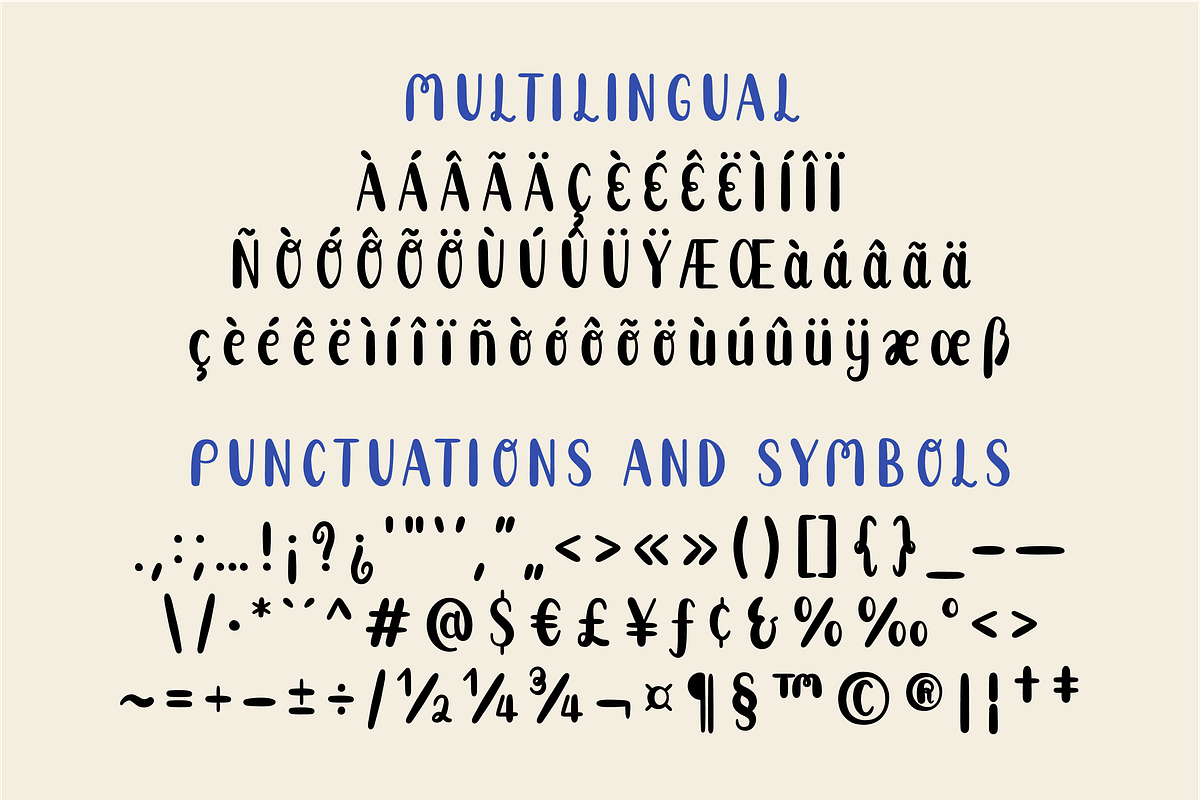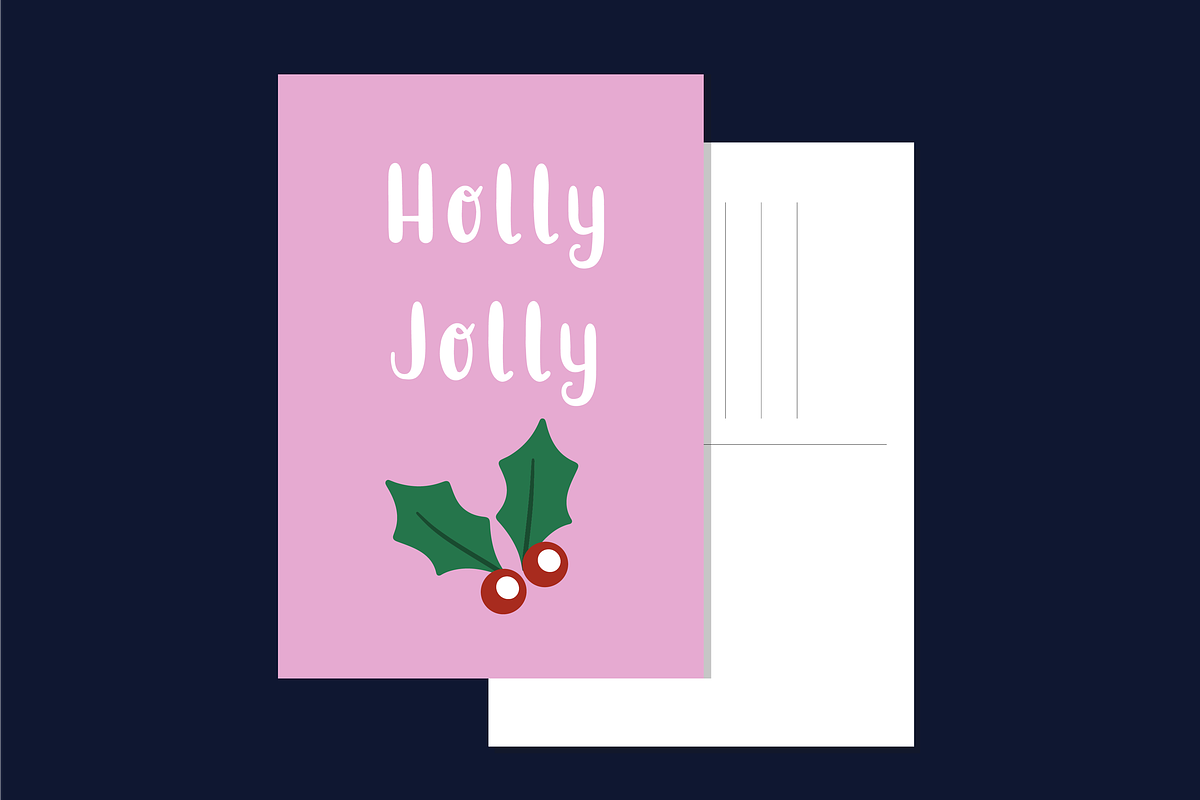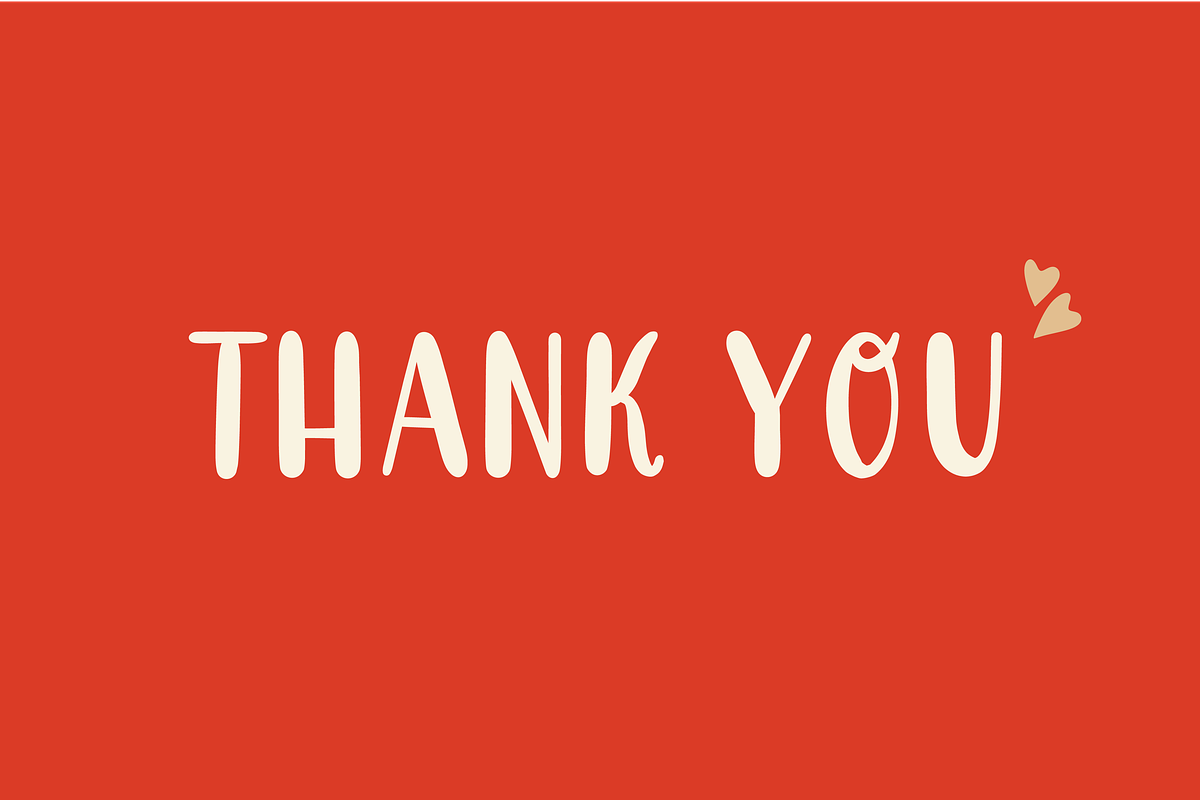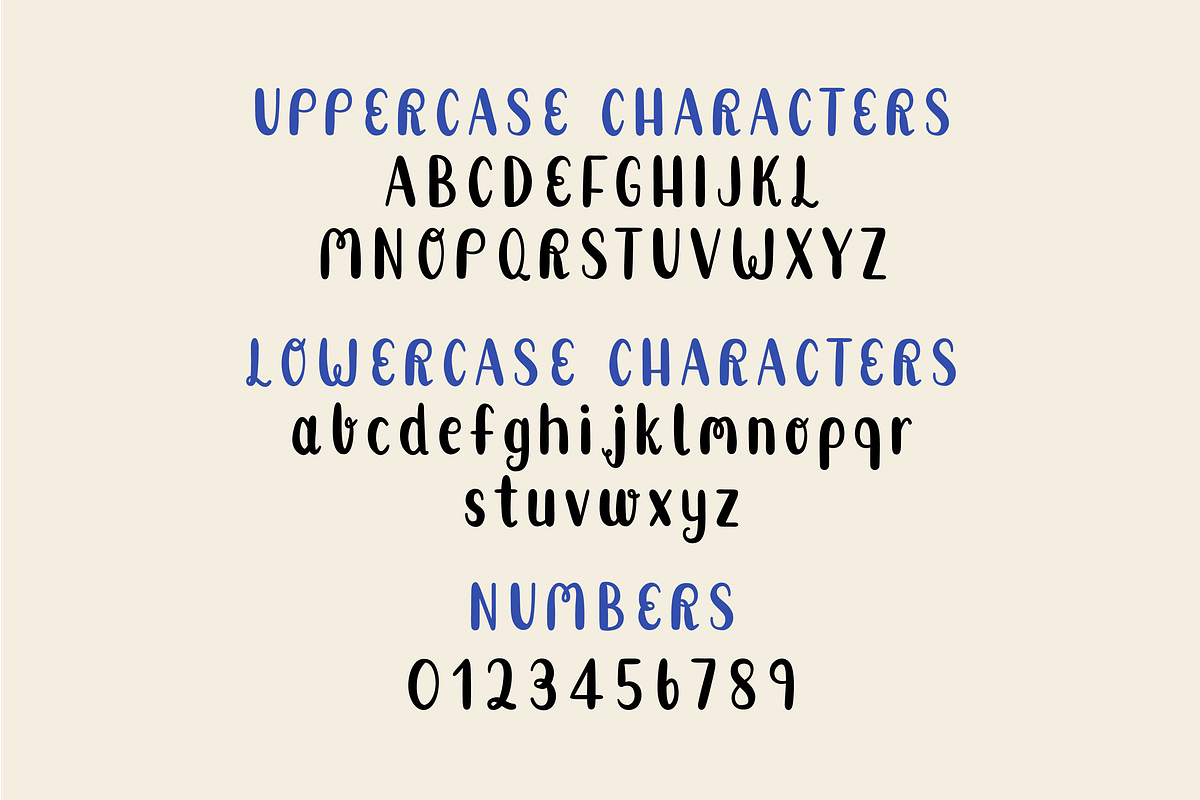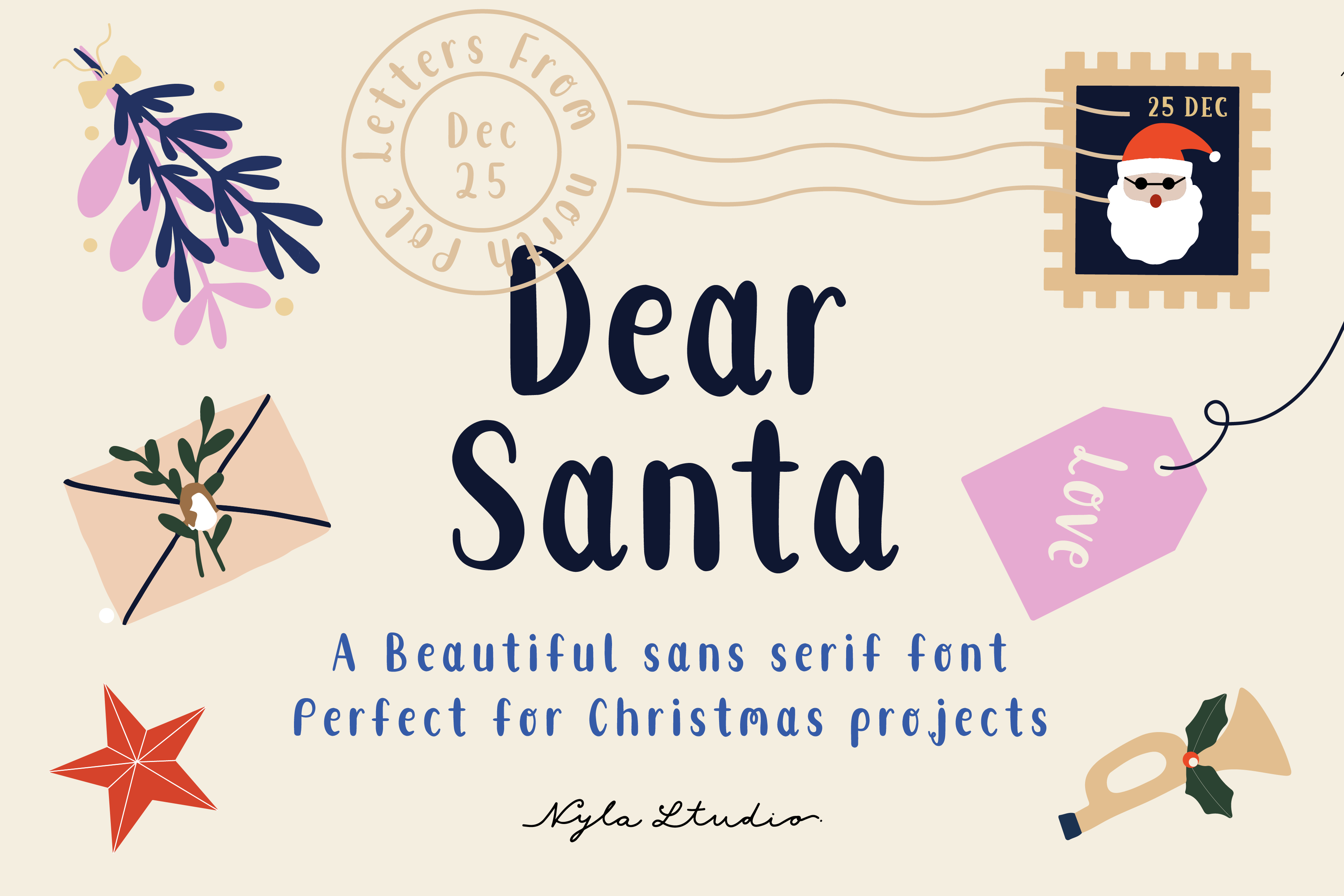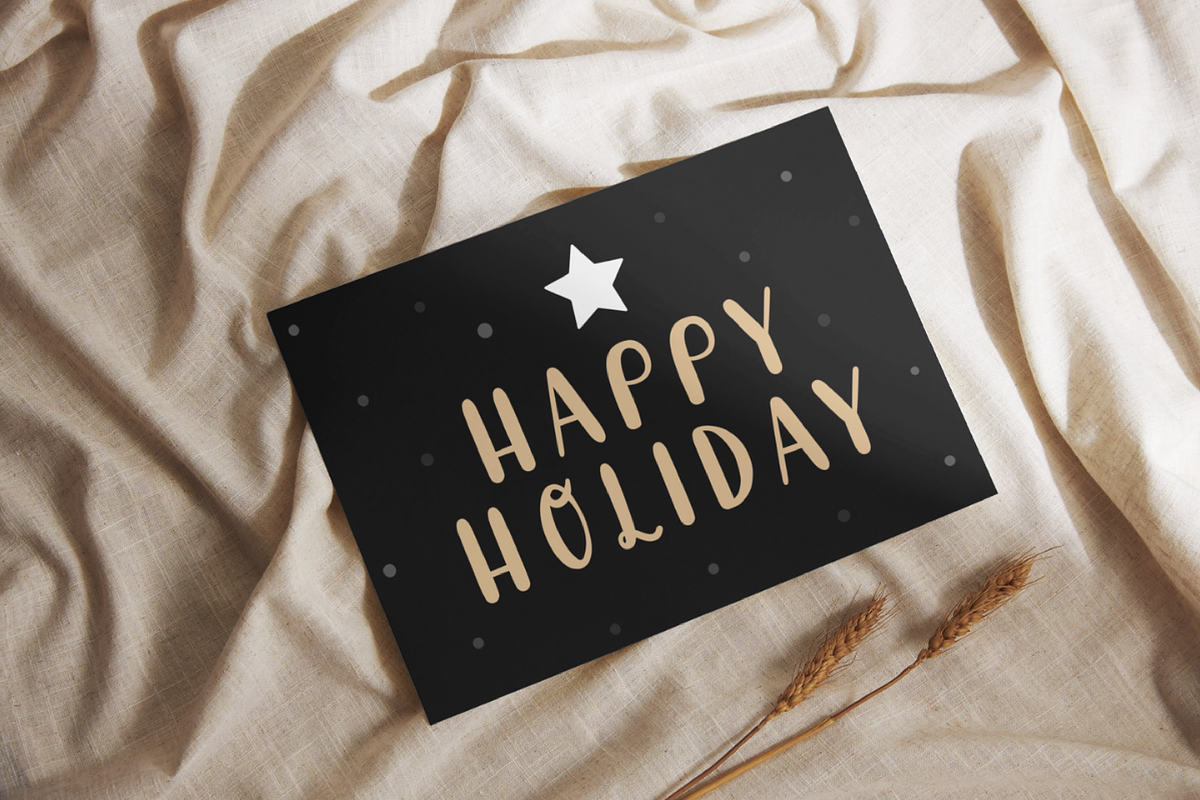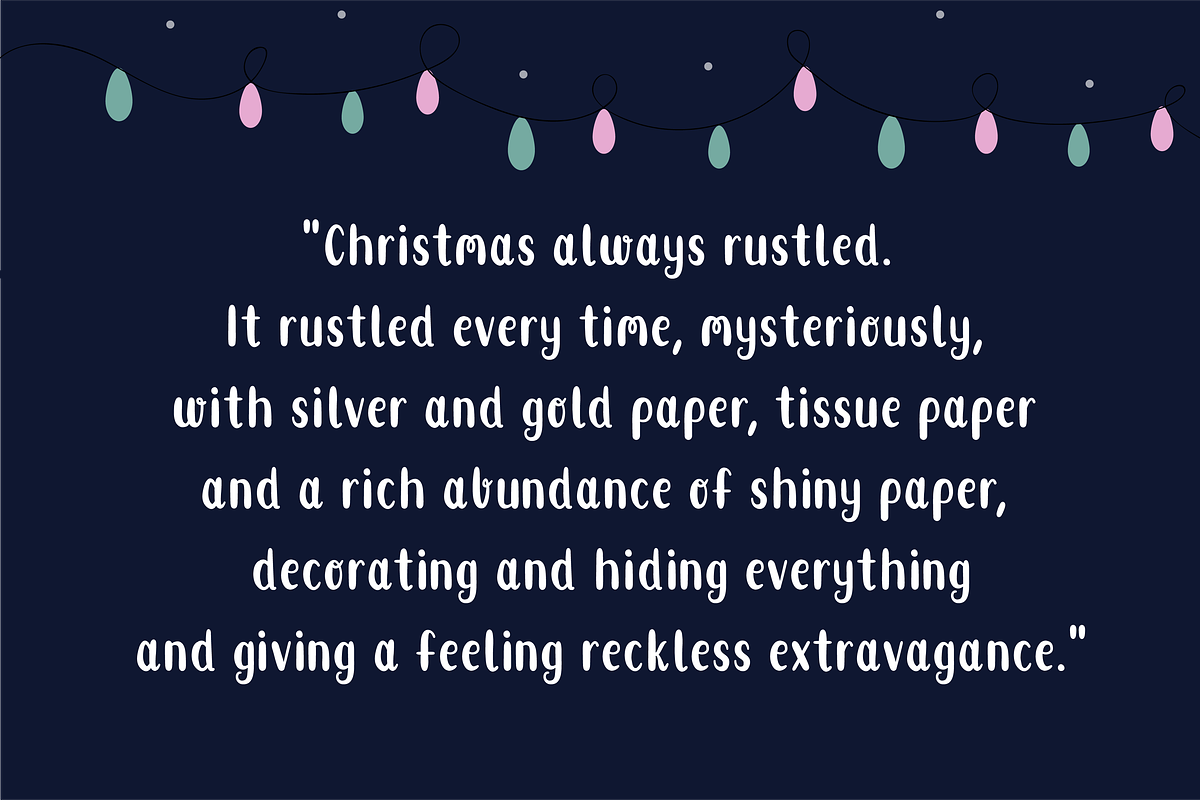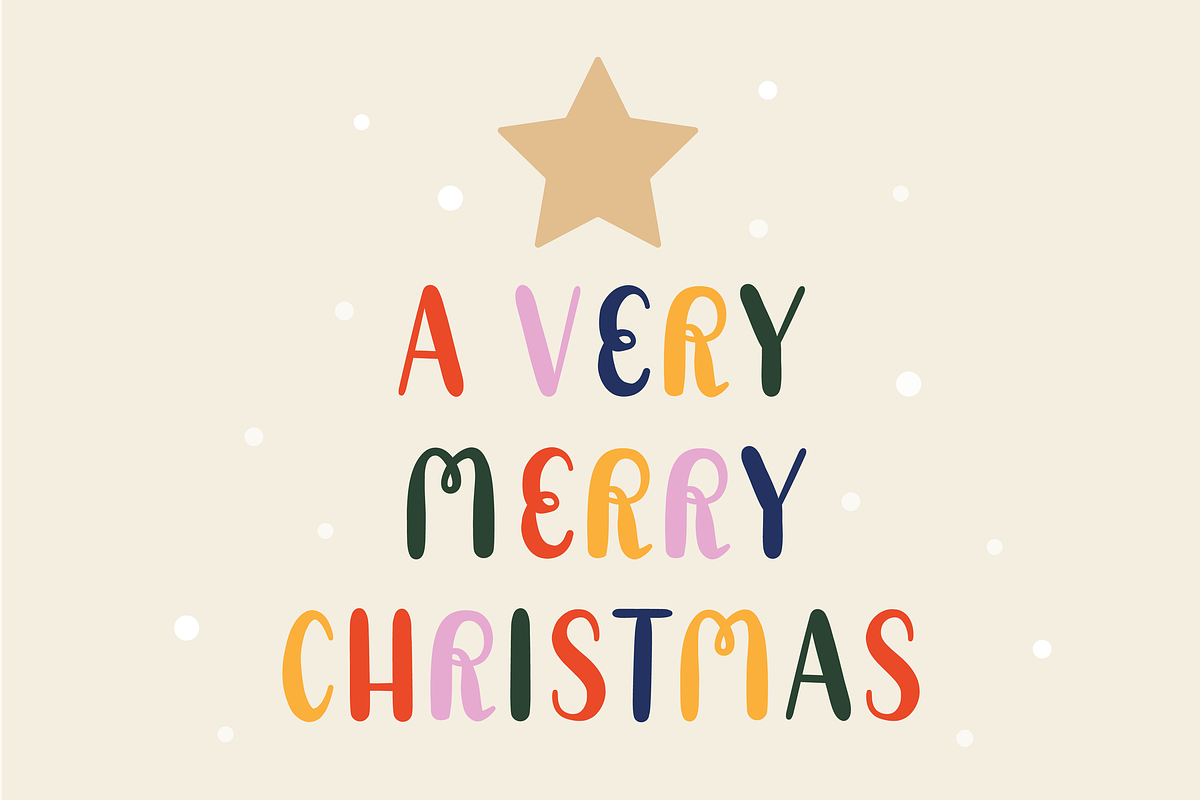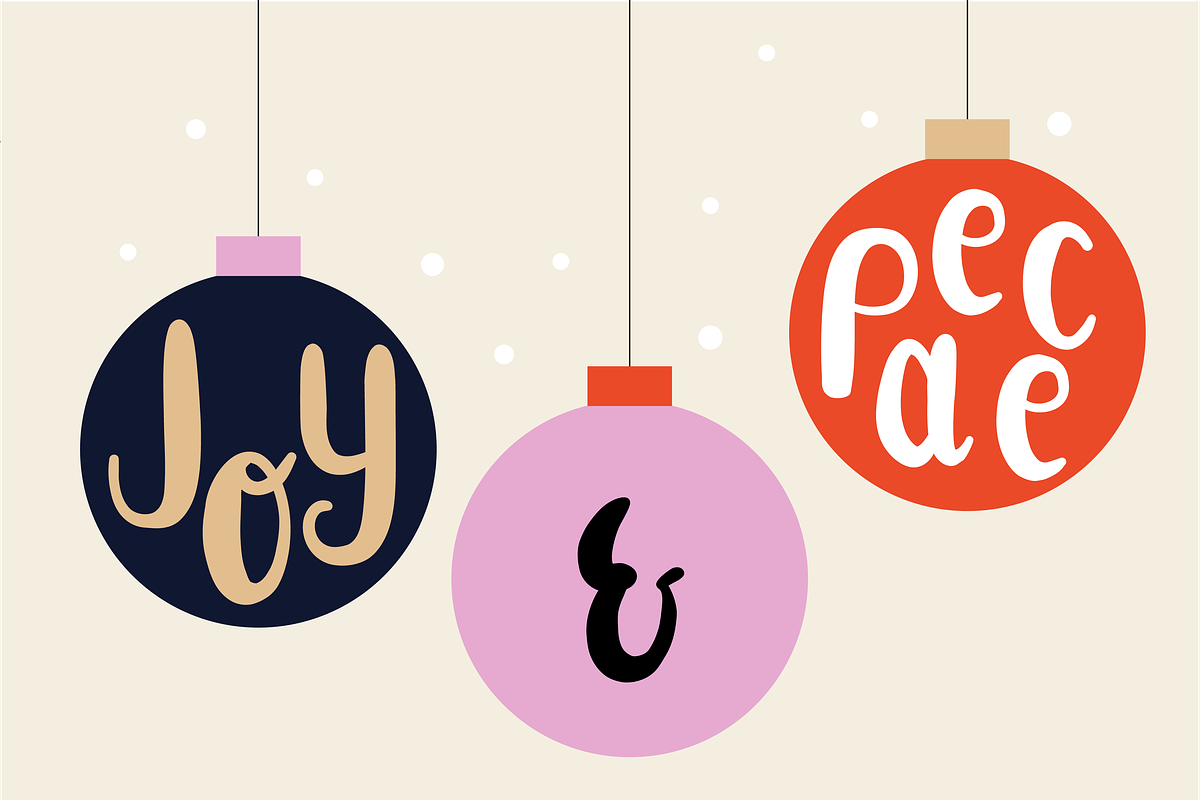
Dear Santa Font
DEAR SANTA is a beautiful and classy sans-serif font. Perfect for Christmas projects, shirts, retro designs, Christmas invitations, mugs, stickers, playful quotes, creating posters, logos, greeting cards, packaging, decorating the illustration and so much more!
Dear Santa Features:
- Full set of alphabet both uppercase and lowercase.
- Extended punctuation.
- Multilingual Characters support.